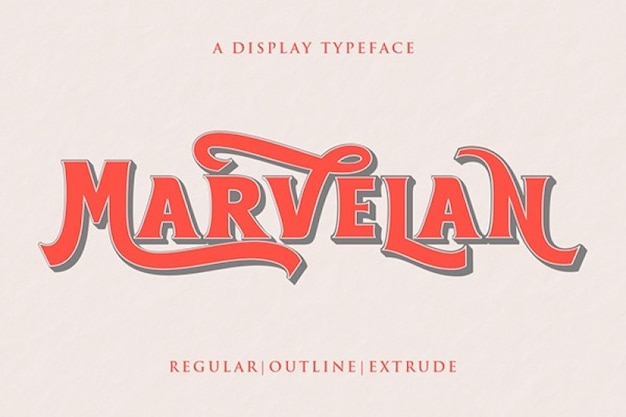
Marvelan Font
Marvelan is our new display typeface with an extruding style, ideal for backgrounds, flyers, cards, and more. Its retro design will confer a unique touch to all your projects, download it now and start creating!